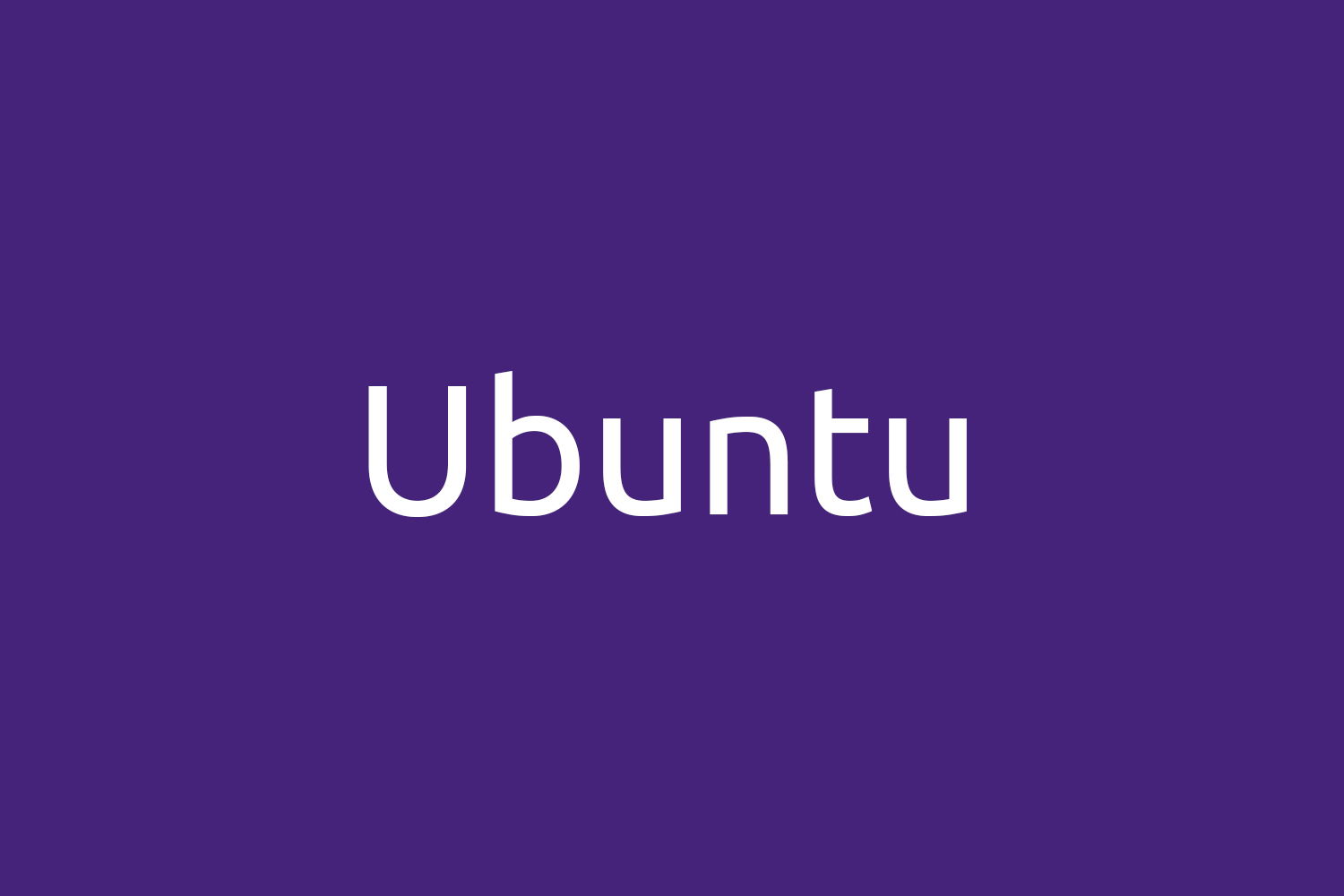
Ubuntu Free Font Family are a set of matching new libre/open fonts in development during 2010—2011. The development is being funded by Canonical Ltd on behalf the wider Free Software community and the Ubuntu project. The technical font design work and implementation is being undertaken by Dalton Maag.
Designed by Dalton Maag Ltd